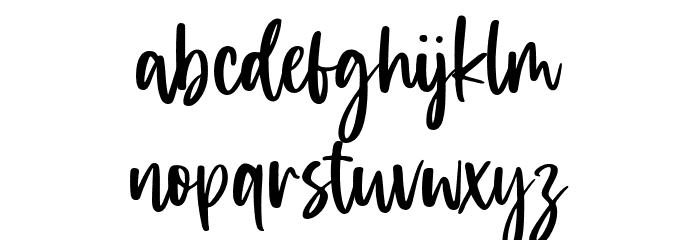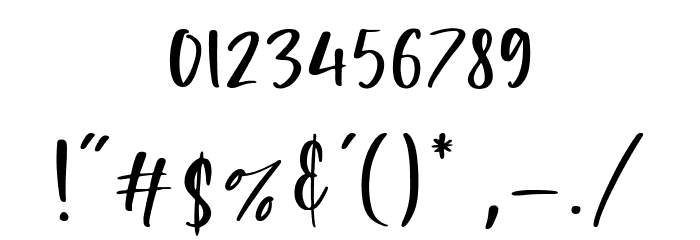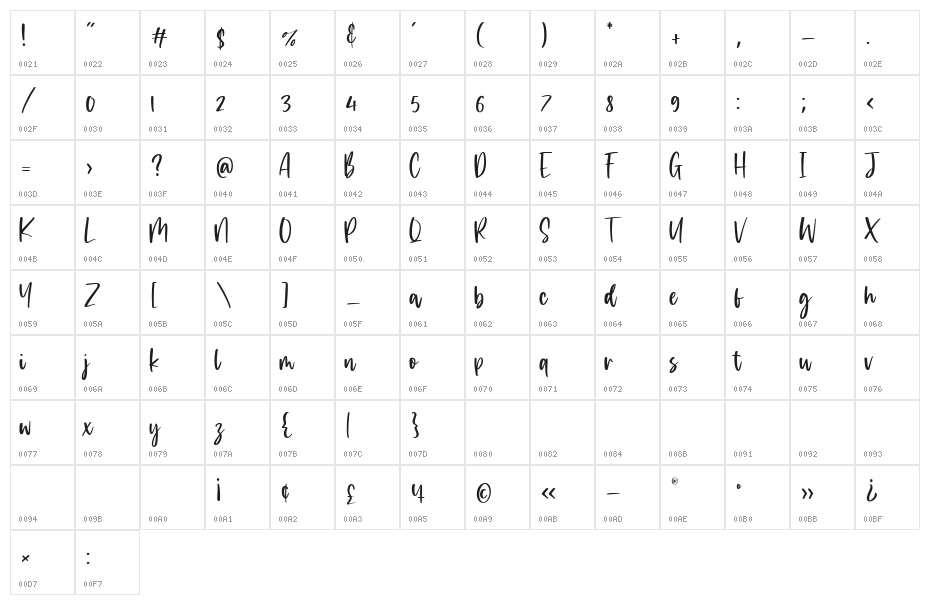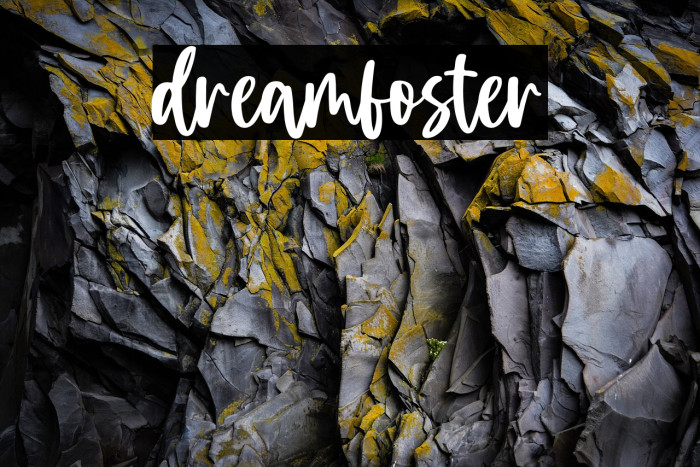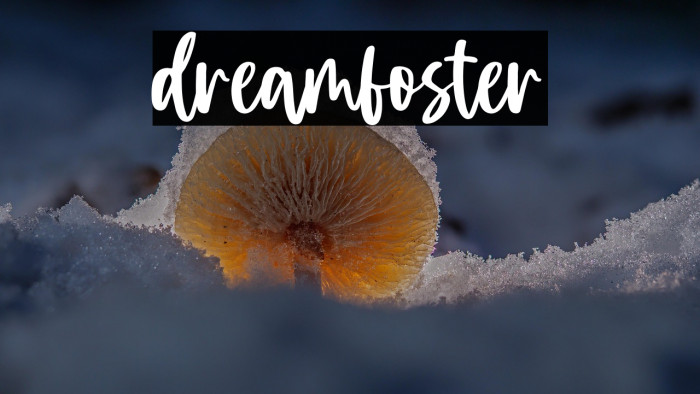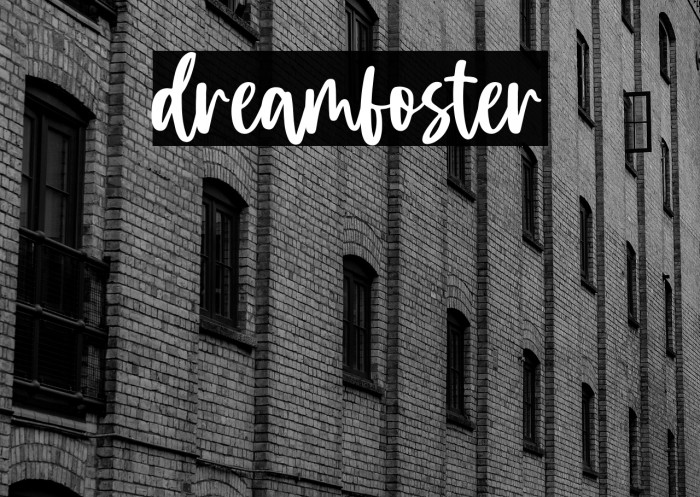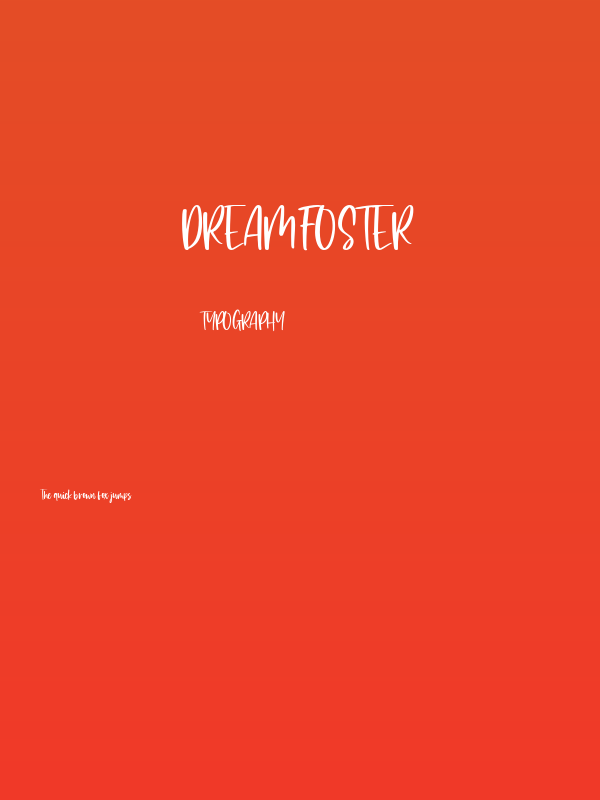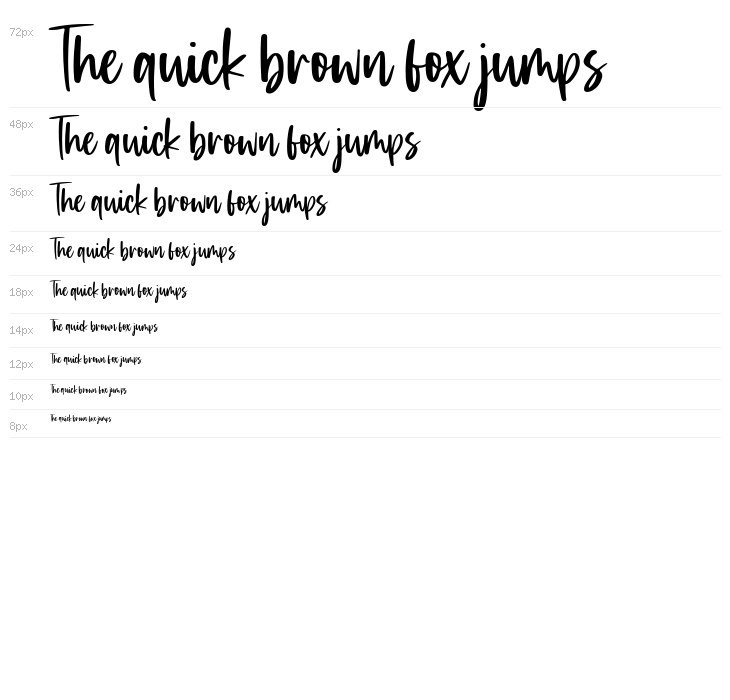
dreamfoster Font
This font features a playful and energetic handwritten style, characterized by its fluid and dynamic strokes. The letters have a casual and informal appearance, with varying stroke widths that add a sense of movement and personality. The uppercase letters are bold and slightly elongated, while the lowercase letters maintain a consistent flow with rounded edges. The numbers and special characters follow the same lively aesthetic, making the font versatile for creative projects. Its unique style is perfect for adding a personal touch to designs.
A playful and energetic handwritten font with dynamic strokes.
- Proposed Projects: Ideal for greeting cards, invitations, branding, social media graphics, and personal projects.
- Use Case: Logos, Headlines, Social Media Graphics